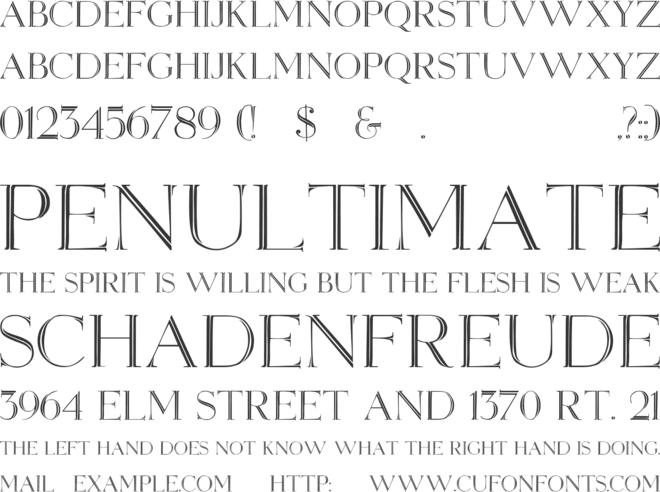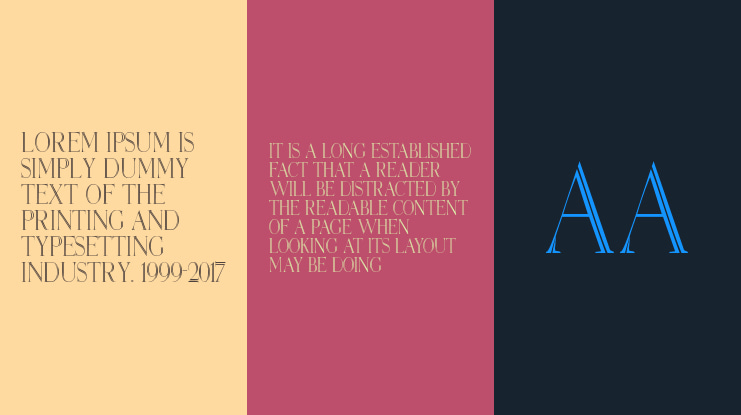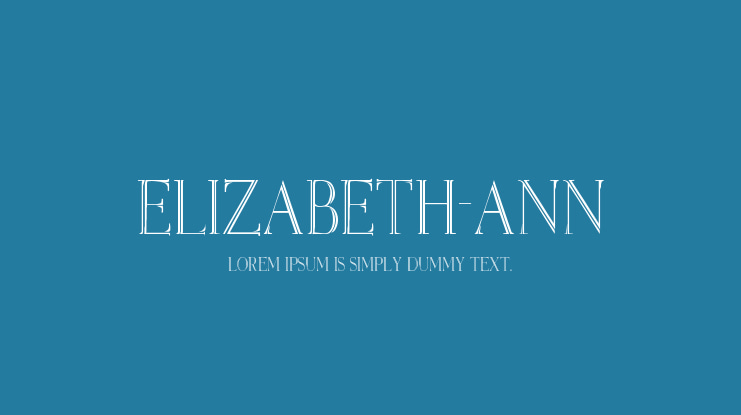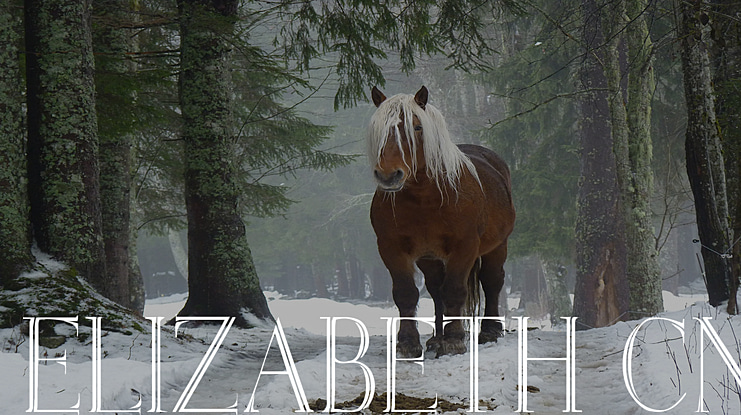
Elizabeth-ANN Font Family
The decorative title typeface was designed at Polygraphmash type design bureau in 1967 by Iraida Chepil.
It is a decorative variant (‘open’, or ‘engraved’) of classical serif typefaces.